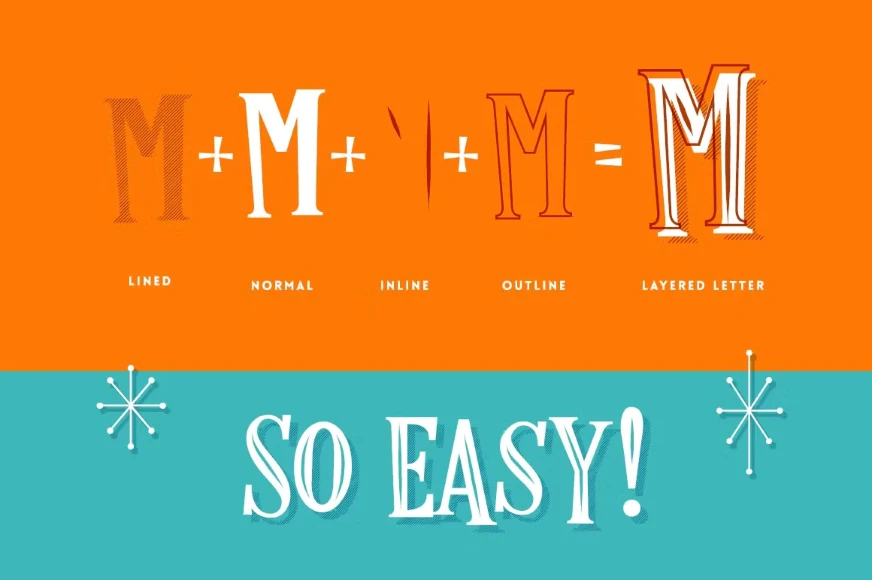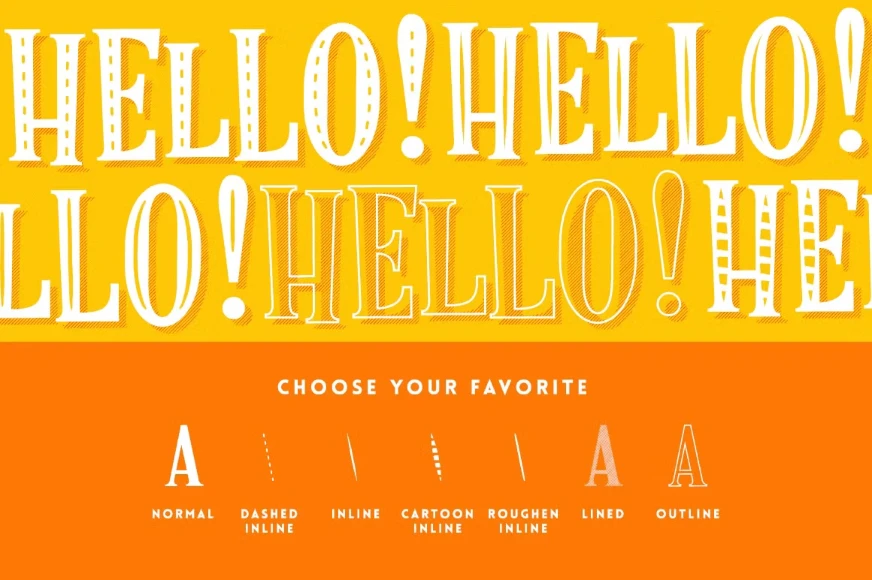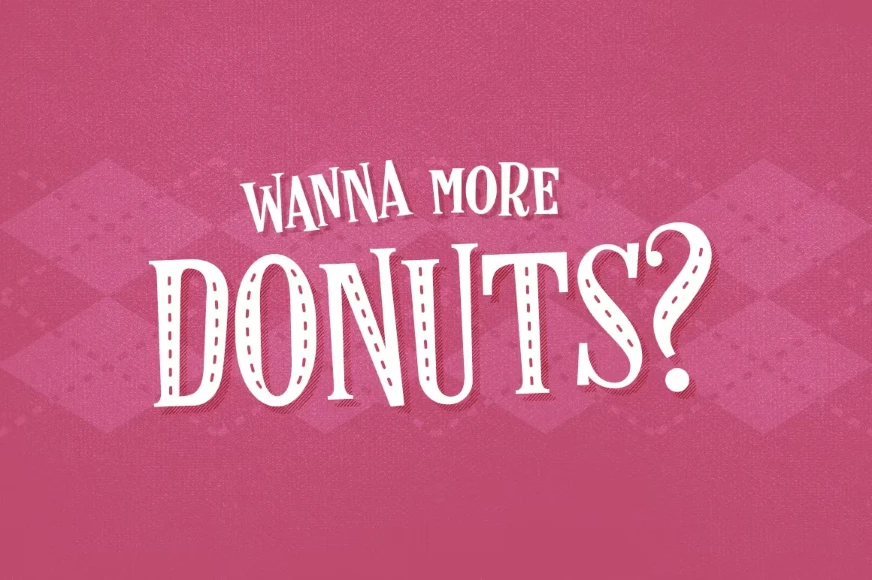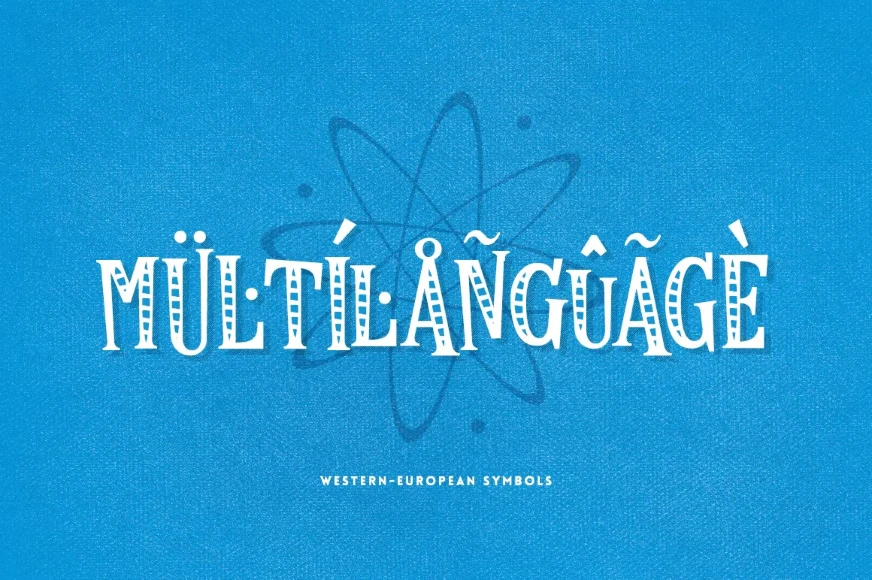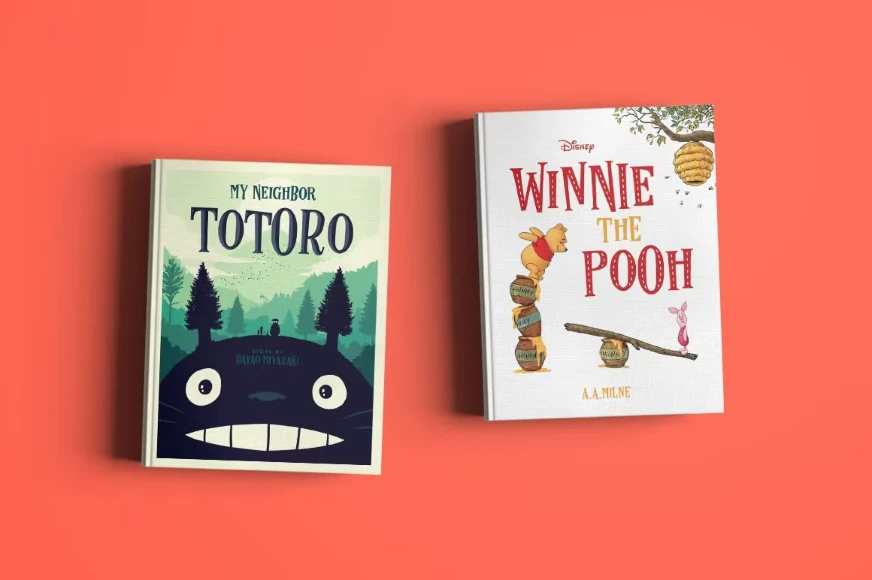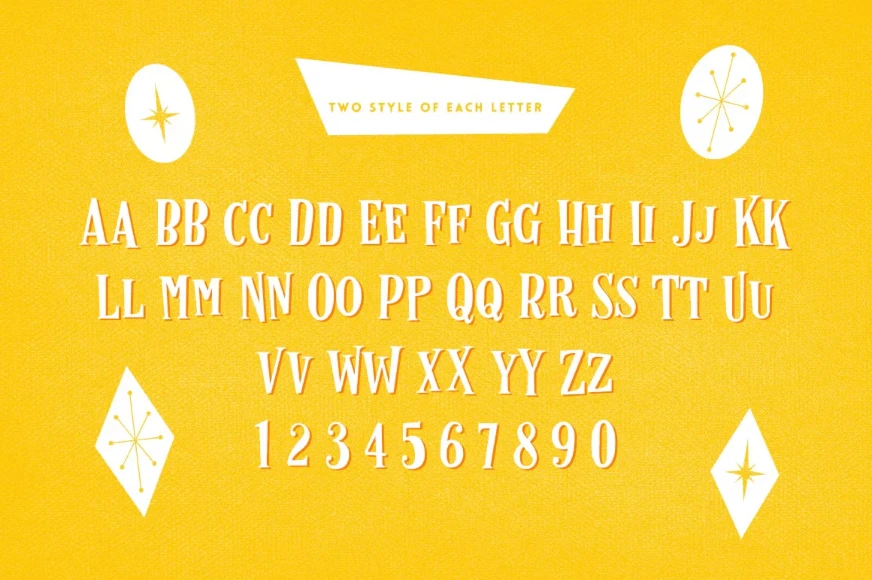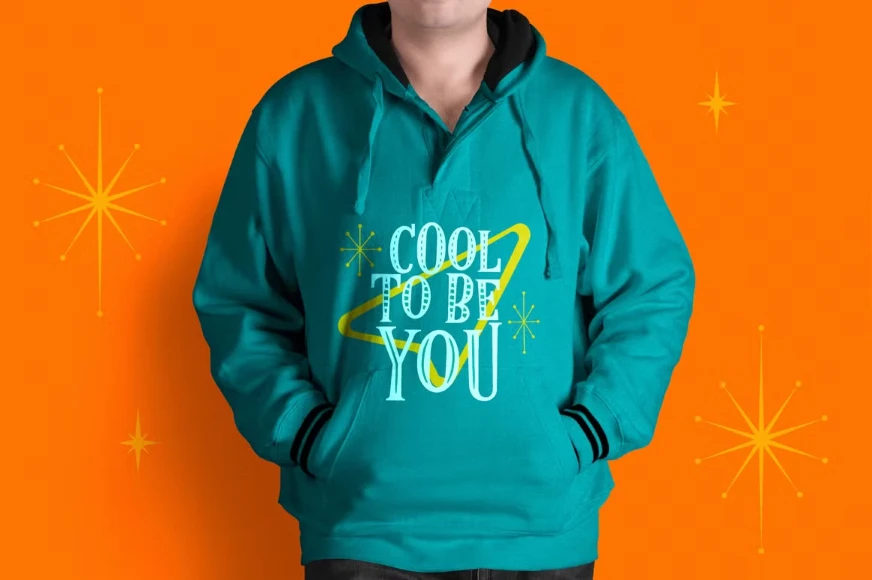
Retro Luxe
Retro Luxe Dashed Inline
Retro Luxe Extras
Retro Luxe Inline
Retro Luxe Inline Cartoon
Retro Luxe Lined
Retro Luxe Outline
Retro Luxe Regular
Retro Luxe Rough Inline
Retro Luxe is a layered font family inspired by postcards and advertising from the 1950s and early 1960s. Designed to bring a bold vintage flair to any project. Includes seven styles that can be combined for unique, eye-catching results. Use the Lined style for shadows or as a striking front layer. Choose from four inline variations and add an outline for decorative impact. Perfect for posters, signage, branding, and designs with a nostalgic touch. Made to stand out with a classic retro look.